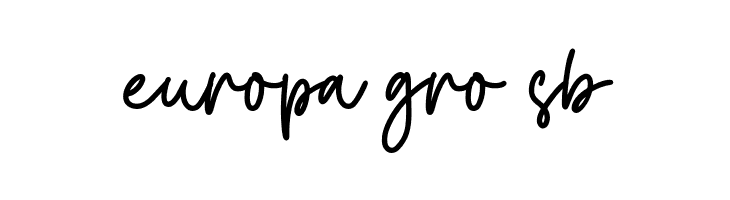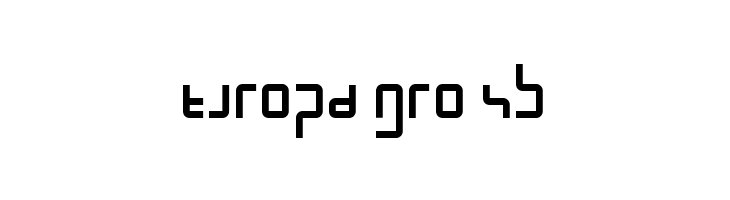
A bold, geometric font with a 3D effect and modern style.
A bold, italic font with strong serifs and dynamic slant.
A geometric, angular font with a futuristic and technical style.
A bold, blackletter-style font with ornate, angular characters.
A bold, outlined blackletter font with a gothic, decorative style.
A casual, handwritten font with fluid, connected strokes and a lively appearance.